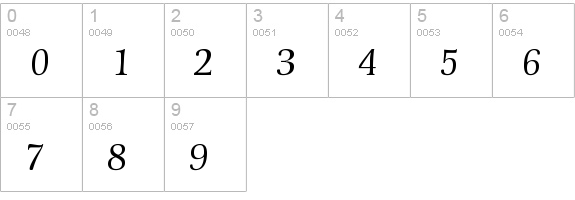
Schneider-Antiqua Light Italic is a refined, elegant, italic variant in the Schneider typeface family \xE2\x80\x94 well suited to elegant body text, refined sub-headings, and luxury branding.
Schneider-Antiqua Light Italic font is a stunning typographic masterpiece that effortlessly combines elegance and versatility. Its delicate and graceful curves create a sense of fluidity, making it an ideal choice for any project that requires a touch of sophistication. The Light Italic variant of Schneider-Antiqua adds a subtle slant to the already captivating design, enhancing the overall aesthetics and providing a unique visual appeal. The italicized characters exude a sense of dynamism and movement, adding a touch of modernity to the classic elegance of the font. With its wide range of applications, Schneider-Antiqua Light Italic is perfect for both print and digital media. It is particularly well-suited for editorial design, branding, advertising, and any other project that demands a refined and refined typographic solution. One of the most exciting aspects of Schneider-Antiqua Light Italic is that it is free to download at FontsMarket.com. This means that designers and enthusiasts alike can easily access this exquisite font and elevate their creative endeavors without any cost. Whether you are a professional designer or a hobbyist, this free font offers an opportunity to add a touch of class and elegance to your work. So, if you are looking for a font that effortlessly blends classic charm with contemporary appeal, Schneider-Antiqua Light Italic is the perfect choice. Download it for free at FontsMarket.com and let your creativity soar to new heights.